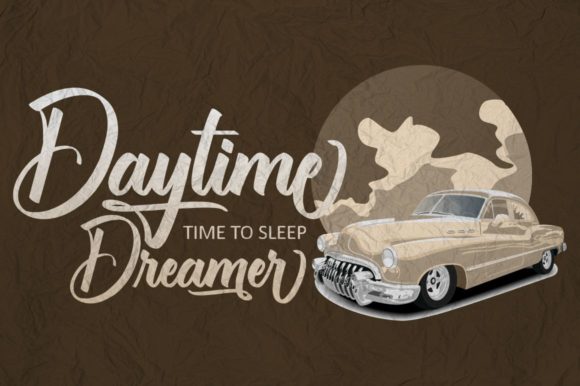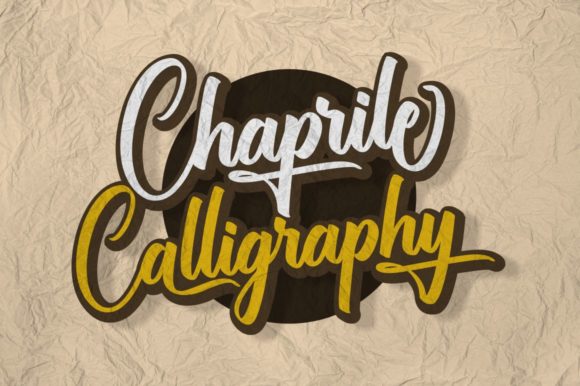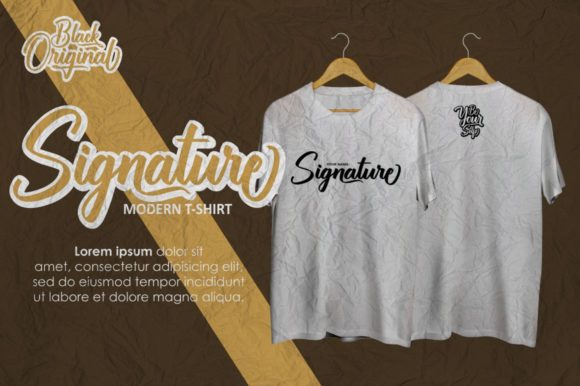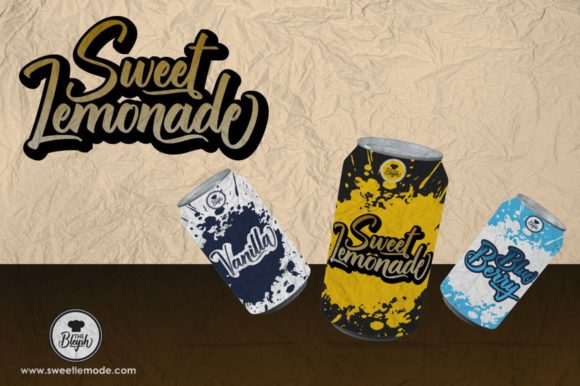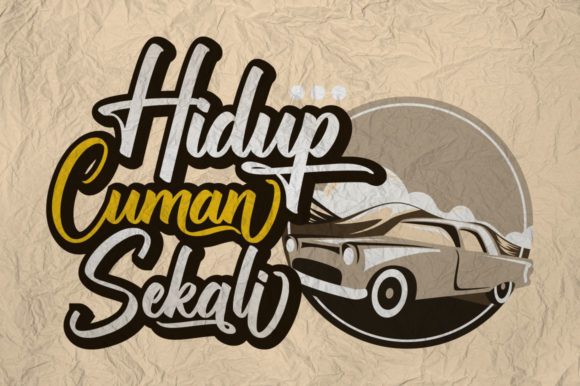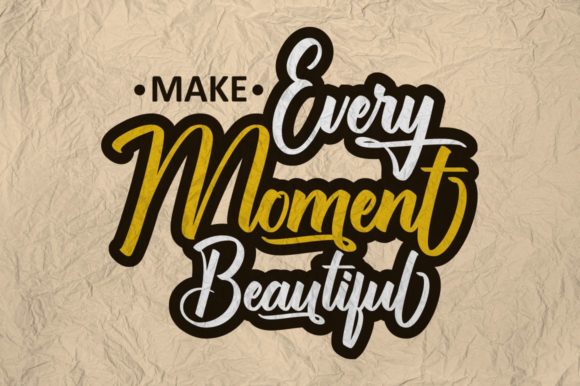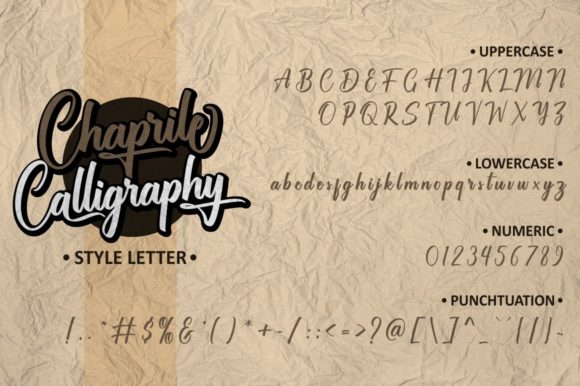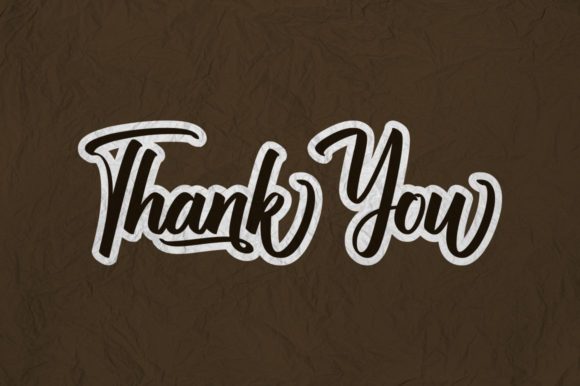
Chaprile Font
About Chaprile Font
Chaprile is a cool and modern script font. It’s perfect for logos, stationery, social media posts, posters and much more!